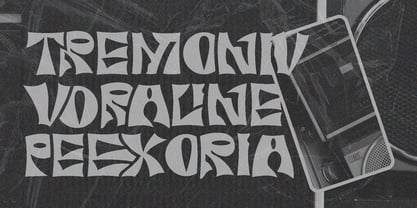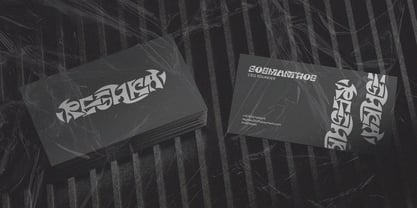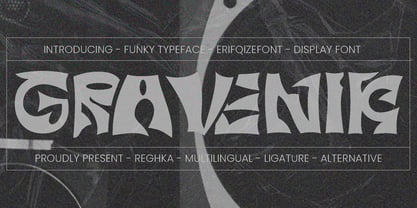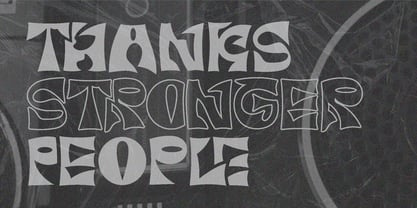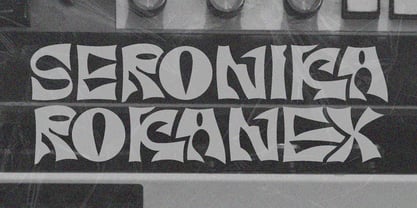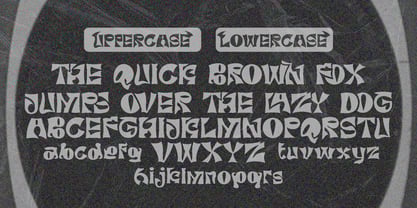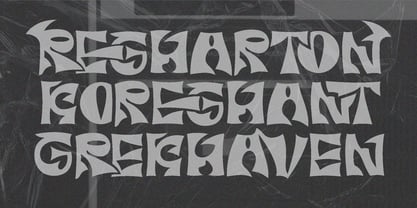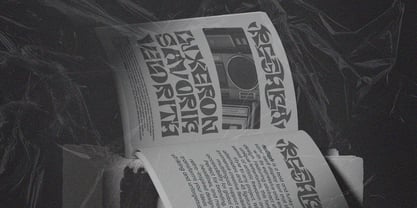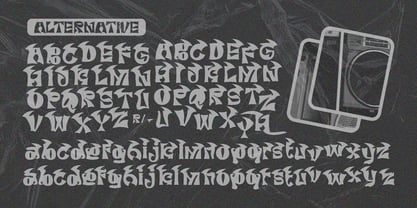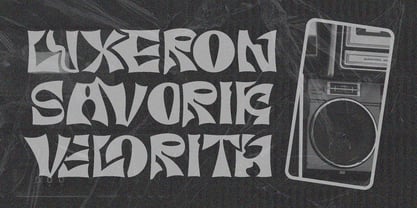
Reghka
by Erifqizefont
The Reghka Font Family was designed by Eka Rifqi Setiawan and published by Erifqizefont. Reghka contains 1 styles.
REGHKA is a bold and funky-themed sans-serif display font that stands out with its expressive and energetic design. Featuring abstract shapes and unique letterforms, this font brings a sense of artistic freedom and dynamic style to any project. With 106 alternates and 45 ligatures, it offers immense creative flexibility, while its multilingual support ensures accessibility for global audiences. Perfect for branding, posters, headlines, and modern or retro-inspired designs, REGHKA transforms your ideas into visually striking and unforgettable creations
Designers: Eka Rifqi Setiawan
Publisher: Erifqizefont
Foundry: Erifqizefont
Design Owner: Erifqizefont
About Erifqizefont
Introducing Erifqizefont, a Foundry led by Eka Rifqi Setiawan. Originating from Eka's experience as an Icon Designer, Erifqizefont specializes in bold, symmetrical Display Fonts with futuristic elements, occasionally exploring retro and whimsical styles. Based in Indonesia, Erifqizefont integrates the nation's cultural heritage into its designs. As a sole proprietor, Eka focuses on crafting superior, unique fonts, setting Erifqizefont apart in the industry.